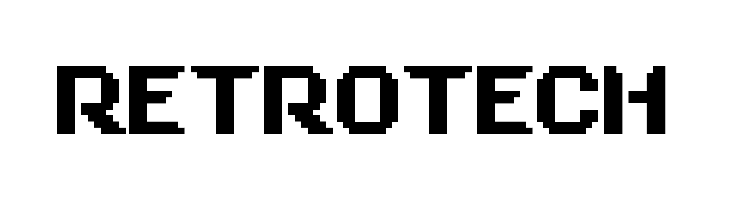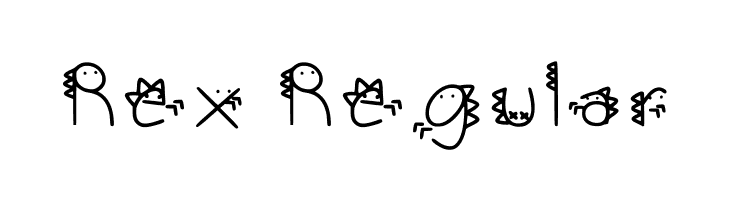
( Fonts by Flynn Nguyen )
A bold, blocky font with a retro, pixelated style.
A bold, retro-inspired cursive font with ornate, flowing characters.
( Fonts by UI Creative )
A bold, playful font with rounded strokes and smooth curves.
( Font by Jayvee D. Enaguas - grandchaos9000.deviantart.com )
A pixelated, retro-style font with a blocky, geometric design.
A bold, playful script font with a handwritten style.
( Fonts by Inermedia Studio )
A playful, hand-drawn style font with tall, narrow characters and medium contrast.
A bold, playful font with dynamic curves and unique character shapes.
A bold, modern geometric font with consistent stroke width.
( Hanoded - David Kerkhoff - www.hanodedfonts.com )
A distressed, grunge-style font with a bold, stencil-like appearance.